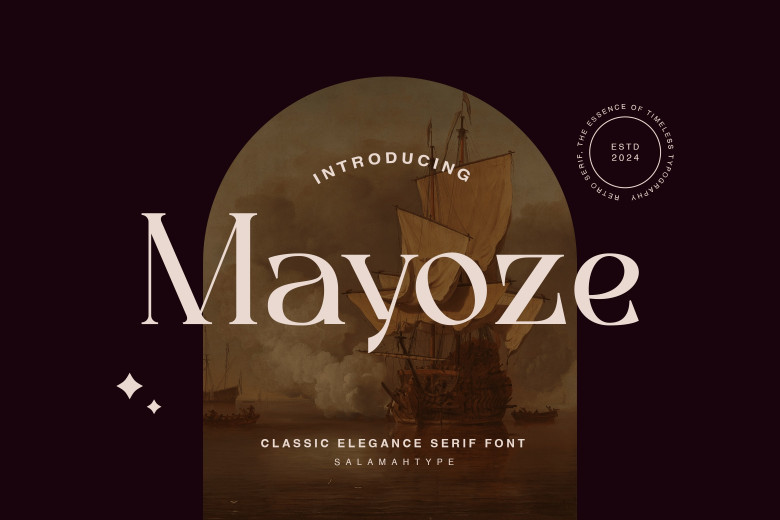
Mayoze Font
Mayoze is a serif typeface with classic and elegant characteristics that is suitable for use in posters, logos magazines product packaging as well as designs requiring elegant characteristics. The font features multilingual support.
Mayoze Serif Font